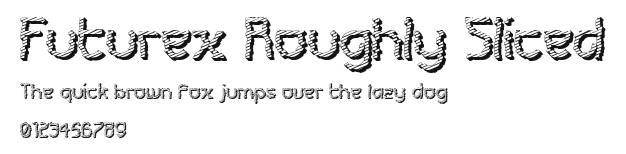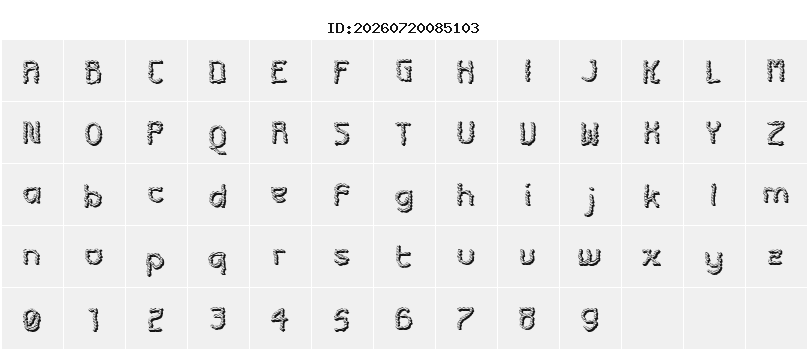
• Font Name: Futurex Roughly Sliced
• Designer: HypoTypo
About Futurex Roughly Sliced.ttf
Futurex Roughly Sliced.ttf is a modern, elegant sans-serif font designed for ultimate readability and visual harmony. Perfect for branding, headlines, web design, and print materials.